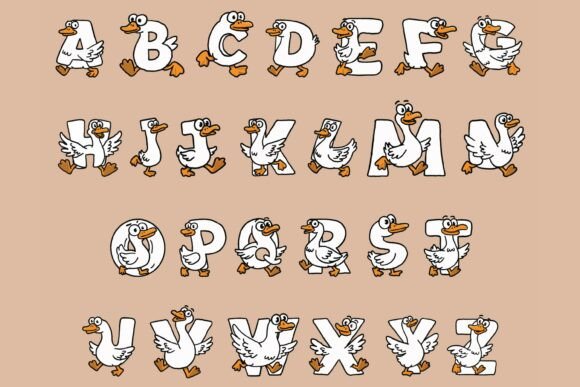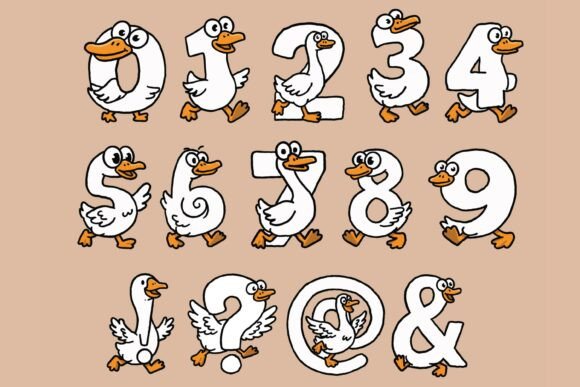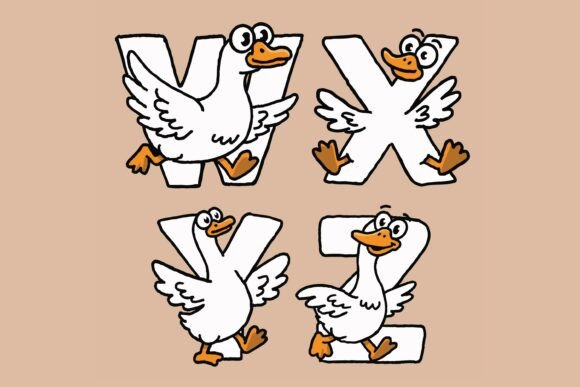
Introduction to Silly Goose Font
Meet Silly Goose, a fun and quirky cartoon decorative display font packed with personality.
Each letter and number is paired with a playful goose illustration, making it perfect for kids’ projects, stickers, logos, posters, invitations, and classroom decor This font comes in OTF & TTF formats and works in all major design programs (Photoshop, Illustrator, Canva, etc.
Key Features of Silly Goose Font
Why Choose Silly Goose Font?